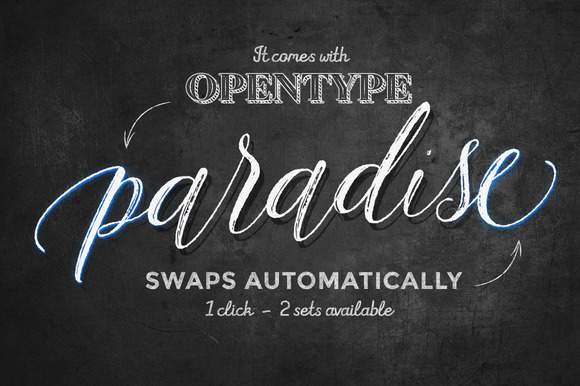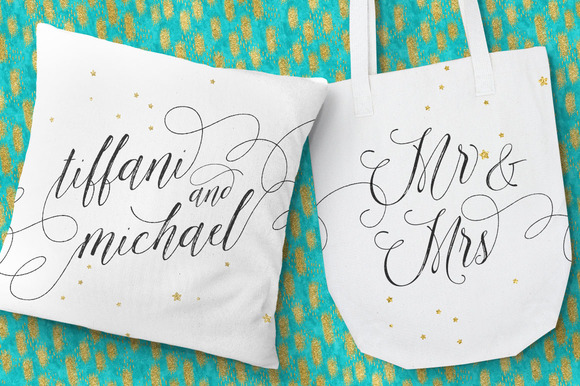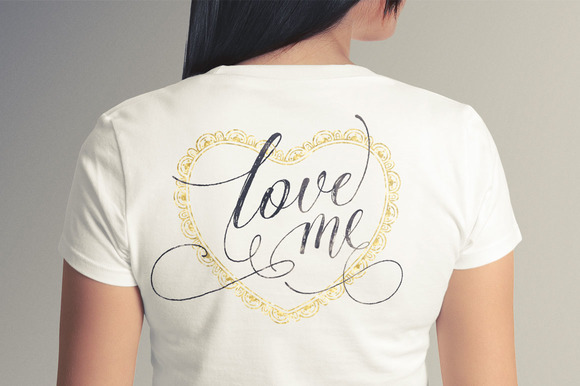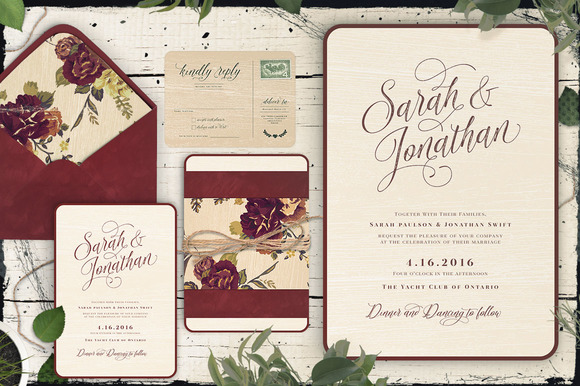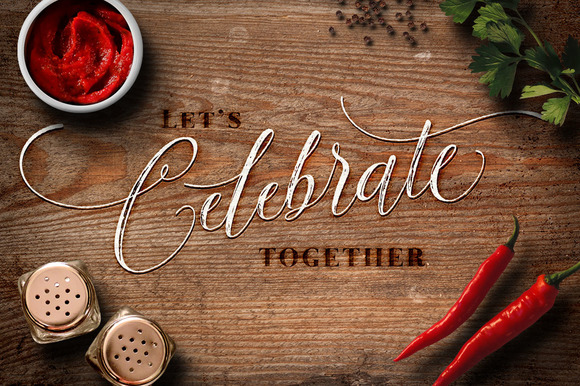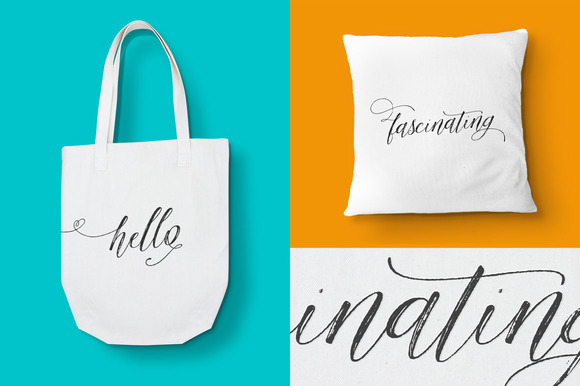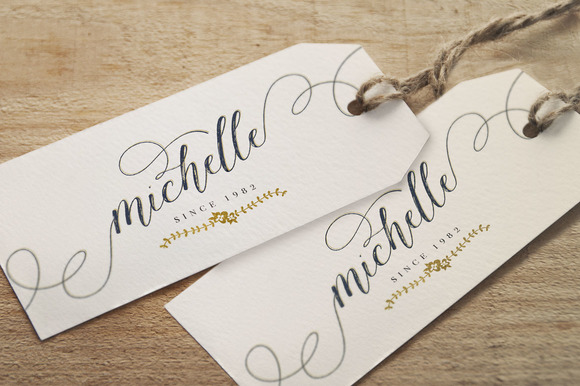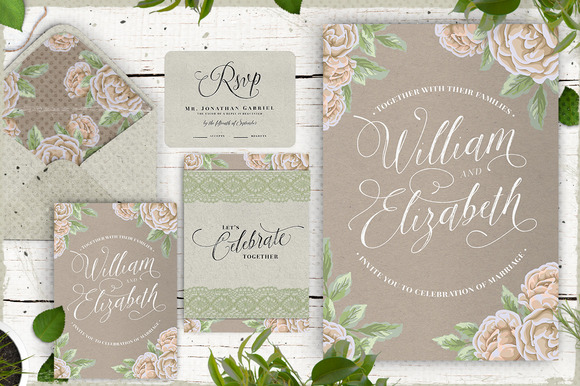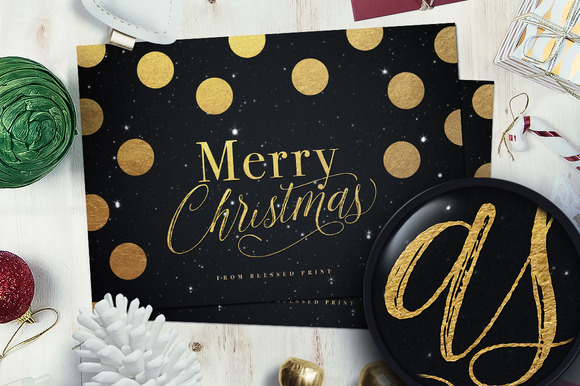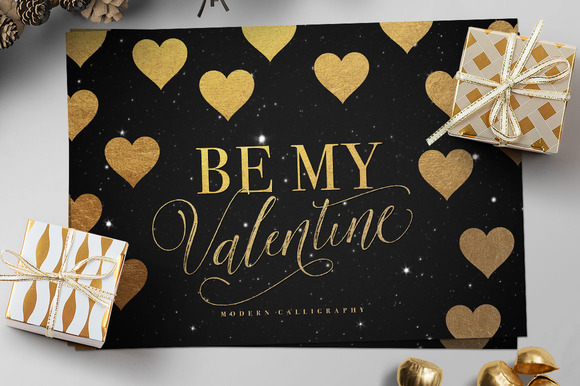
Amelia Script – Draft Version Font
The beautiful Amelia Script font comes packed with lots of glyphs and swashes.
Amelia offers so much variety that you will never run out of options. You will be able to create something unique each time you use it.
The Amelia Script font is packed with loads of extra features.